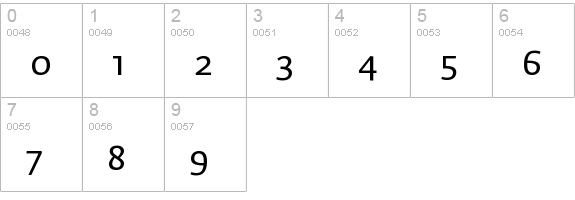
Auto 2 Regular Font Details
Auto 2 Regular is the standard, neutral variant in the Auto typeface family \xE2\x80\x94 well suited to general body text, paragraphs, and standard typographic work.